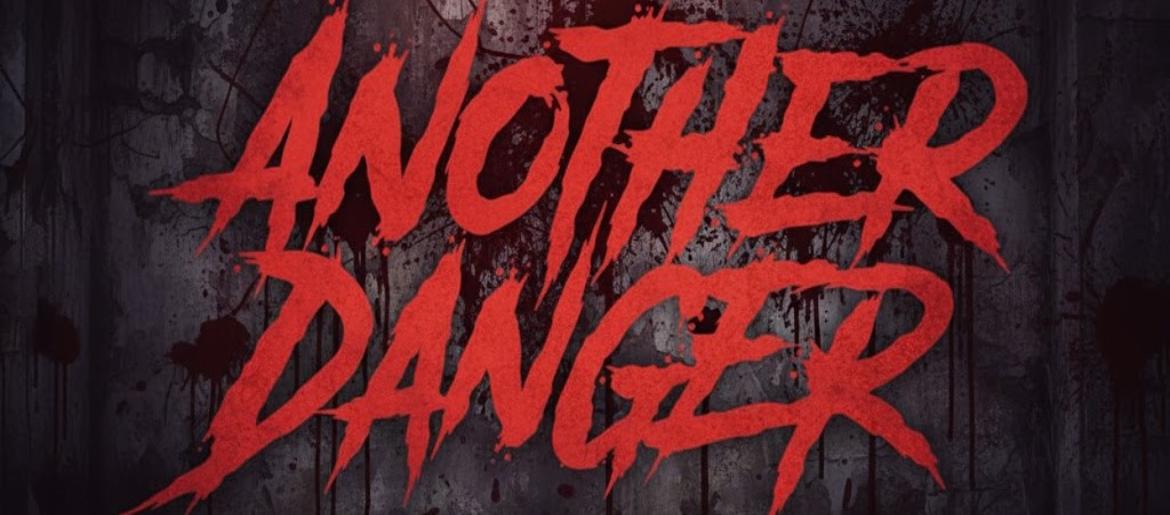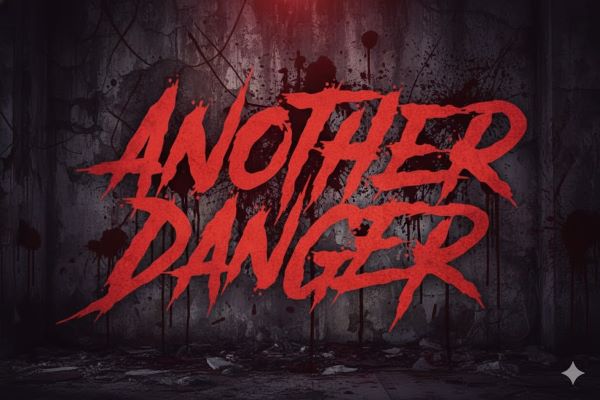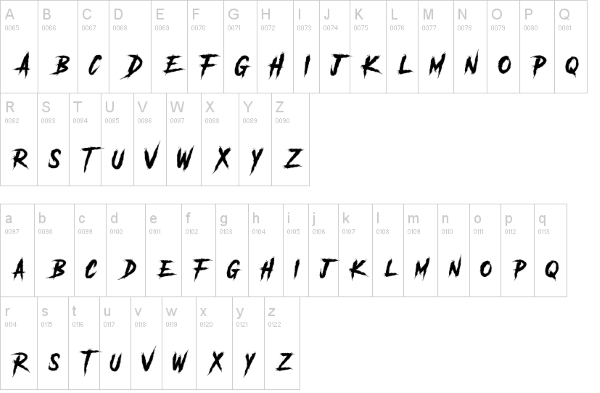
Another Danger
another danger font
Another Danger Font is a gritty, horror-style display typeface known for its chaotic, brush-stroke appearance and jagged, textured letterforms. Designed by The Branded Quotes, the font’s uneven ink-like edges create an intense, rebellious vibe ideal for horror posters, movie titles, album covers, edgy graphics, and other high-impact designs that need a raw, expressive look.
Font Name: Another Danger
Designer: The Branded Quote
Style: Horror